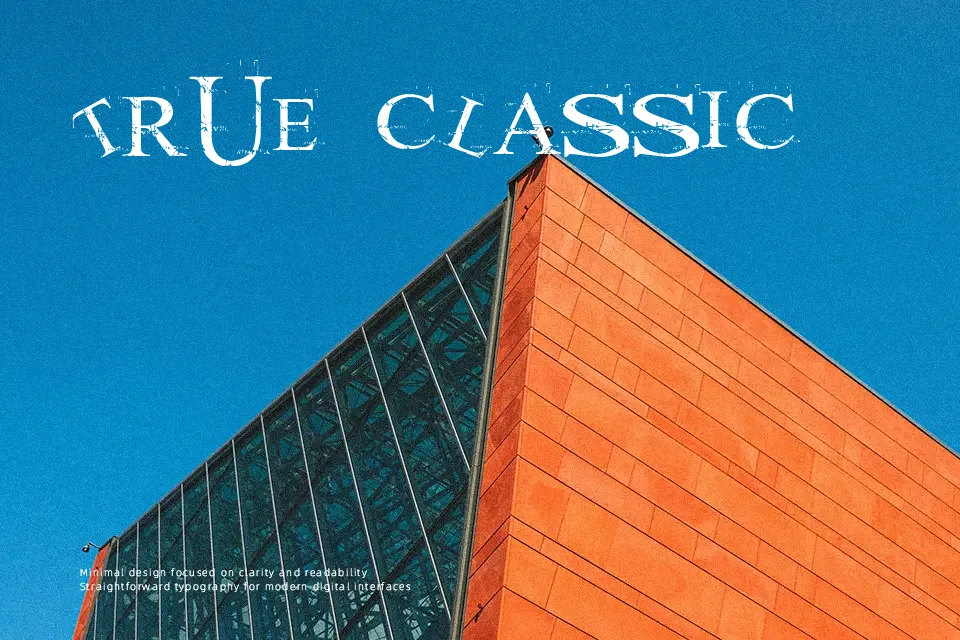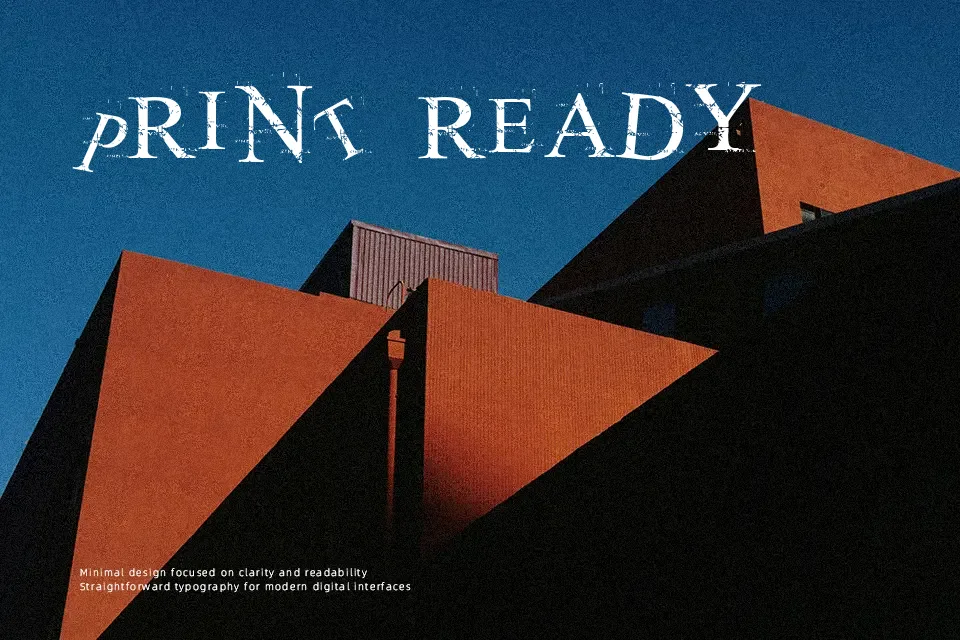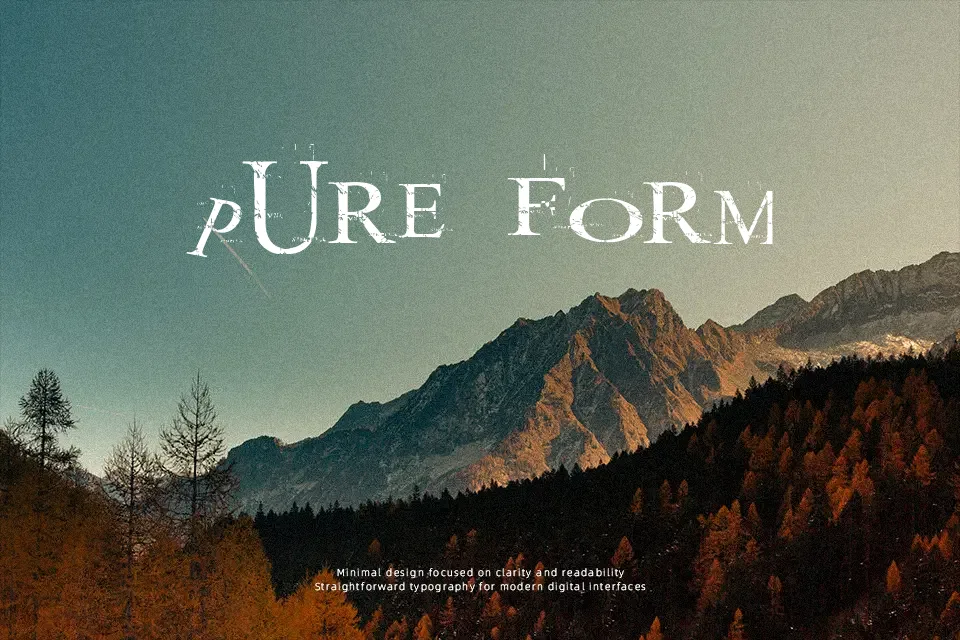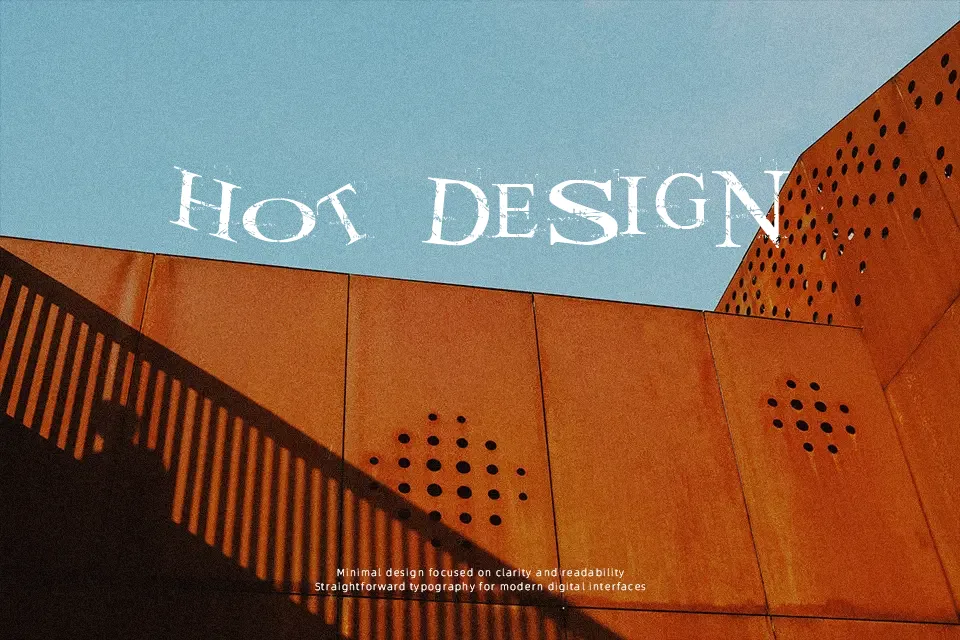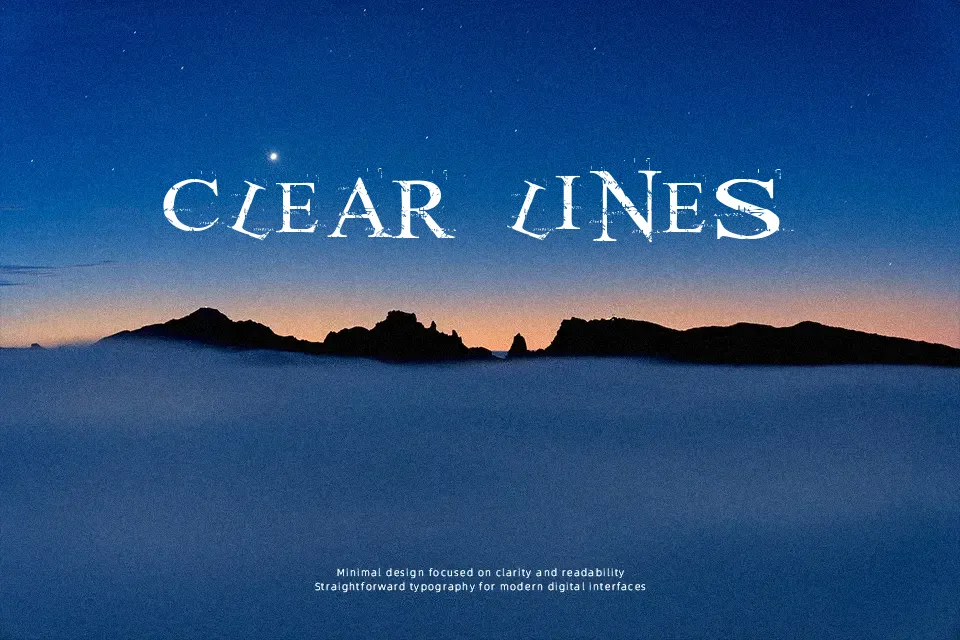
Akoom Font
Designed by Veredgf
There’s a rawness to Akoom that earns its place in the right project — but only if you know what you’re getting. Tall serif letterforms show visible distortion and uneven stroke weight, giving each character a worn, eroded appearance as though exposed to static or decay. The spacing is generous enough to maintain readability at headline sizes, though small-scale use breaks down quickly. This is a font that sets a tone before you even read the words — dark, vintage, and slightly unsettling. It suits boutique horror event flyers, artisanal packaging where “handmade imperfection” is the aesthetic, or alt-music album artwork. Where it fails: anything requiring clarity at body size, or any context demanding professionalism. Don’t push it below 24pt.
Best For:- Vintage horror or Halloween event poster headers
– Artisanal product label typography
– Alternative music or zine cover design
– Boutique branding with a worn, handcrafted character
Not Ideal For:- Body text or long-form reading
– Corporate or professional documents
– Small-size print or fine-detail applications
– Formal editorial layouts
Perfect for branding, halloween, and music, with a artistic and decorative style.